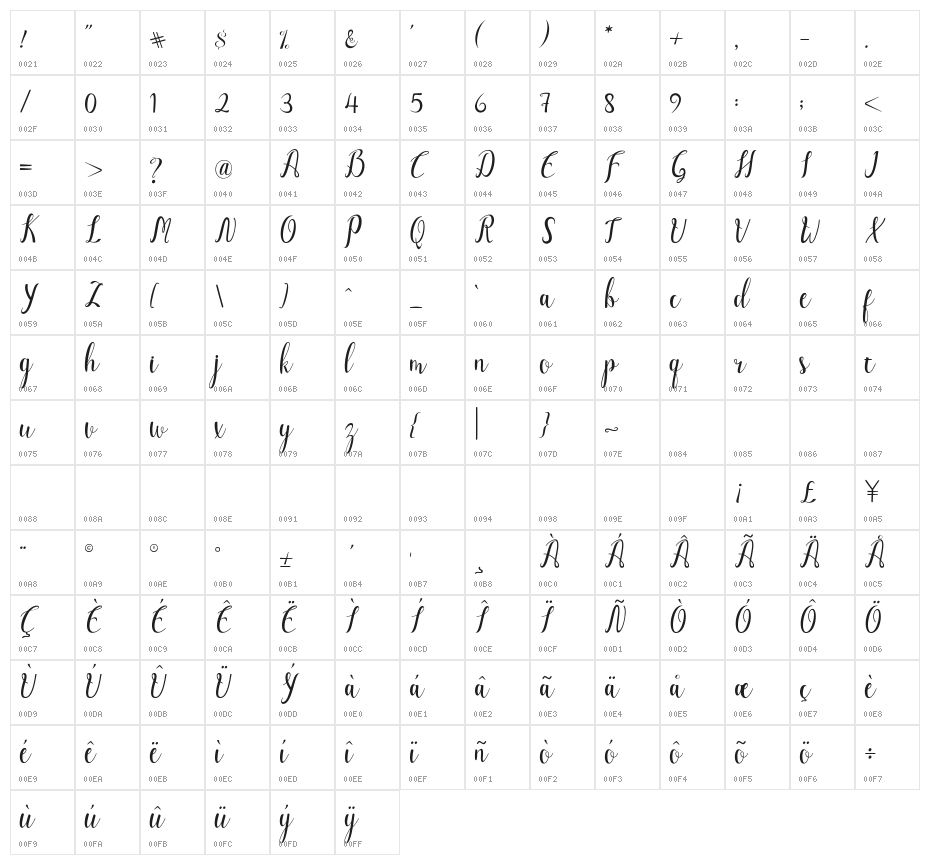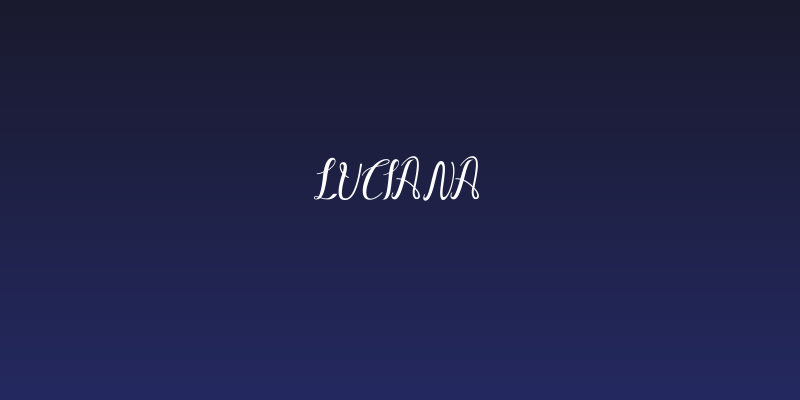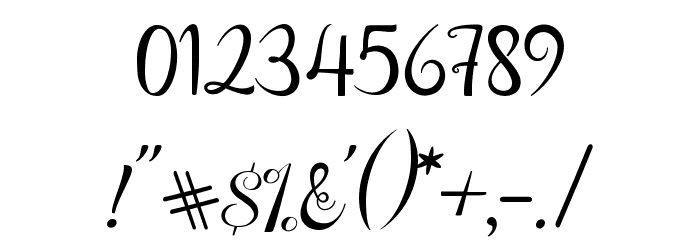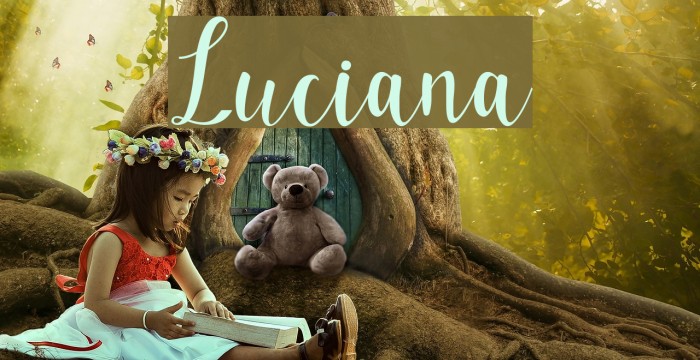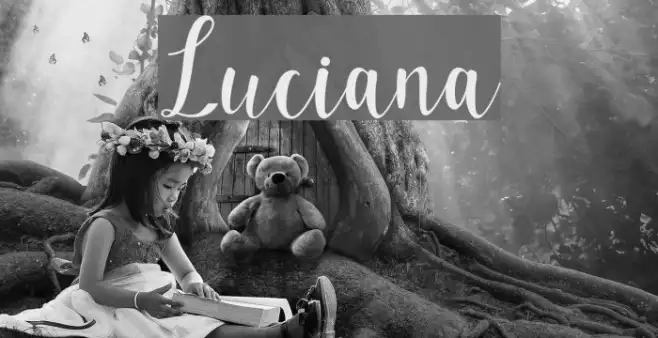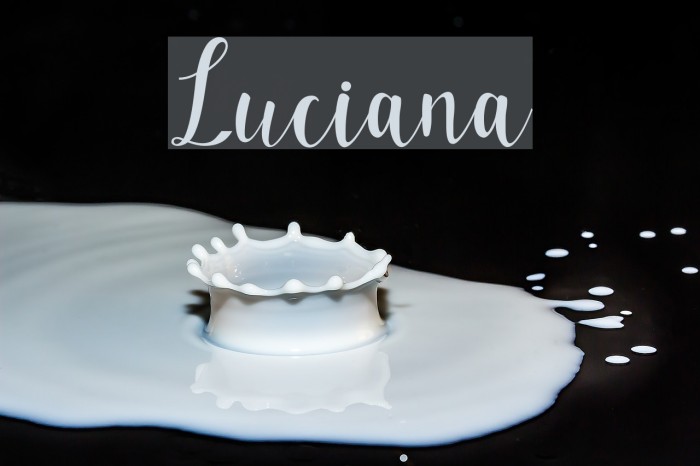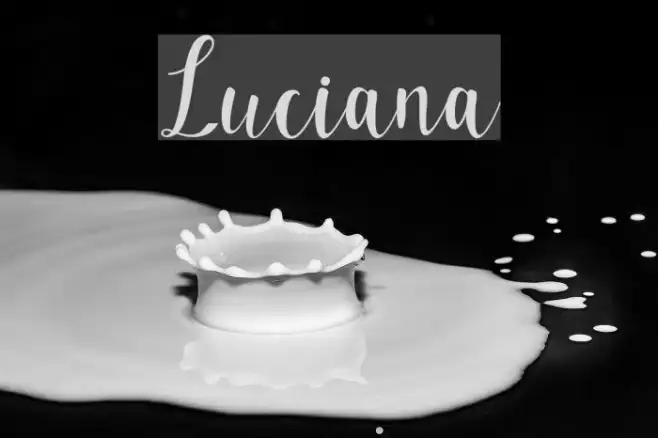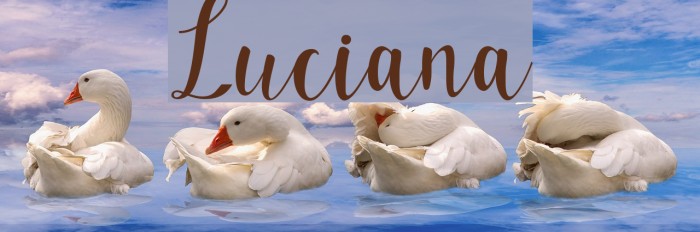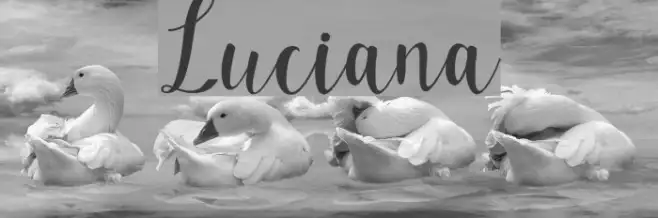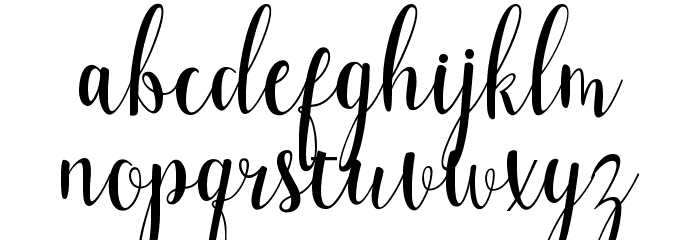
Luciana Font
This elegant script font features flowing, cursive strokes with a refined and sophisticated appearance. The uppercase letters are tall and graceful, with sweeping curves that give a sense of motion and fluidity. Lowercase letters are equally stylish, with distinctive loops and flourishes that enhance the overall aesthetic. The numbers and special characters maintain the same elegant style, making them suitable for a variety of design applications. The font's overall look is both classic and modern, making it versatile for different uses.
| Overall Style | Elegant, Classic |
| Proposed Projects | Ideal for wedding invitations, elegant branding, greeting cards, and upscale packaging. |